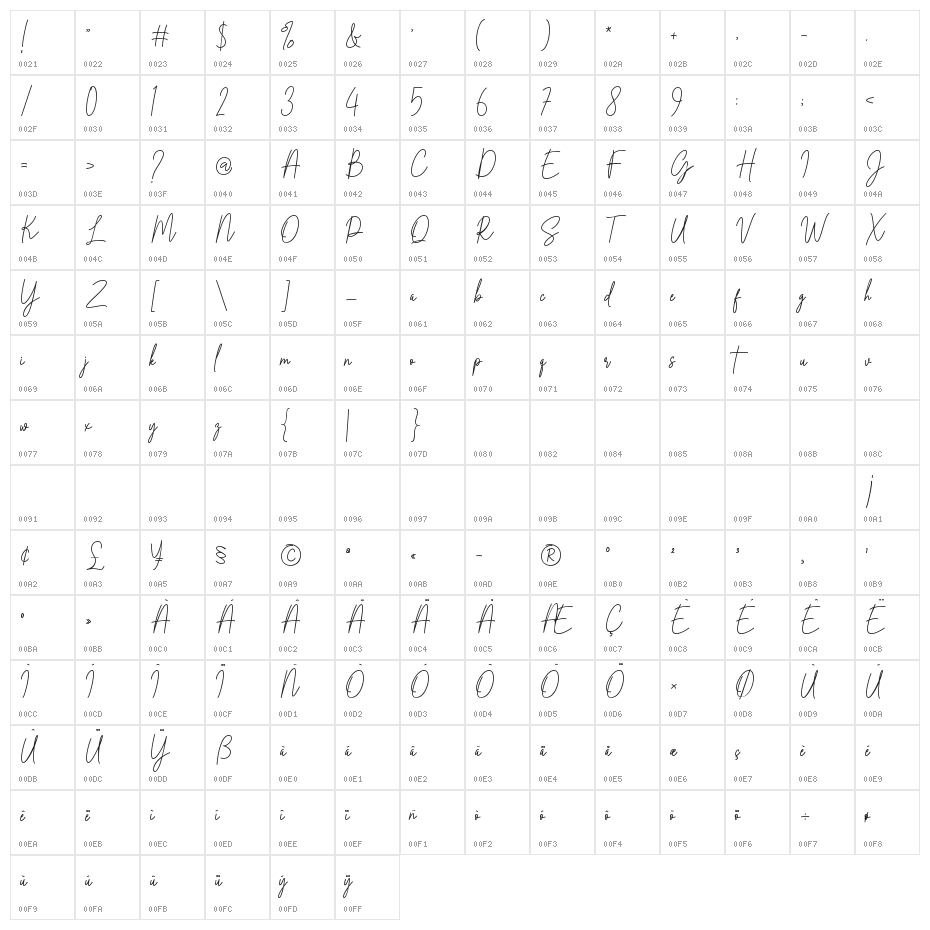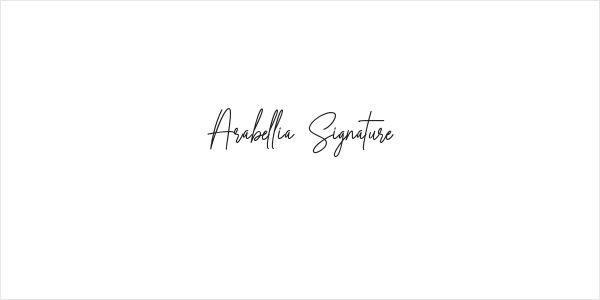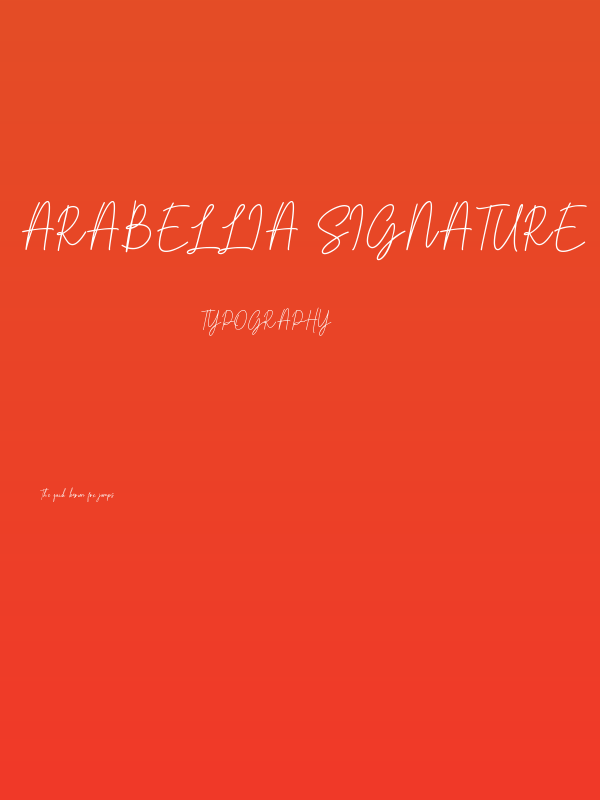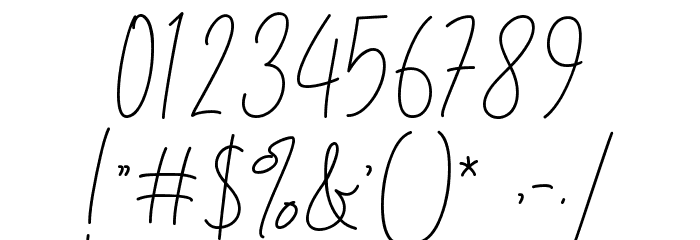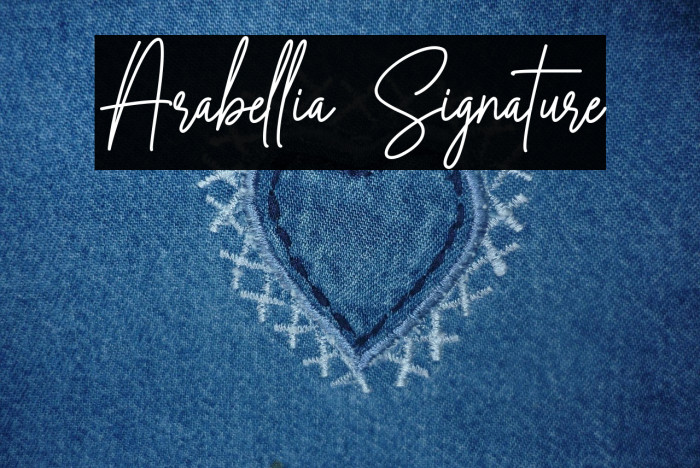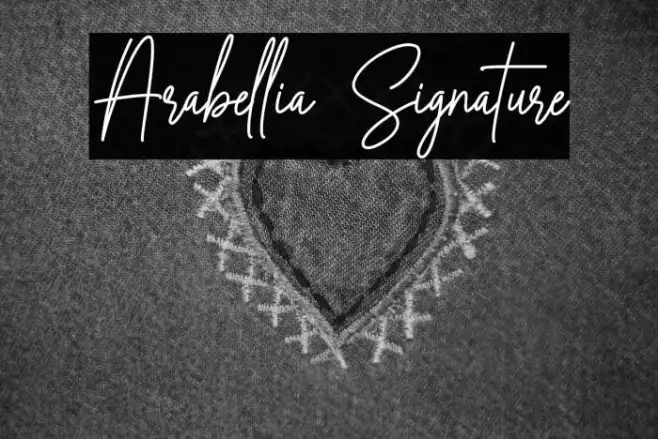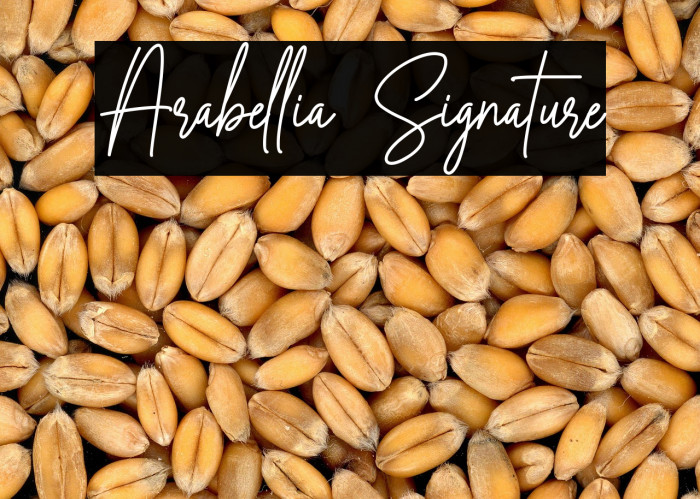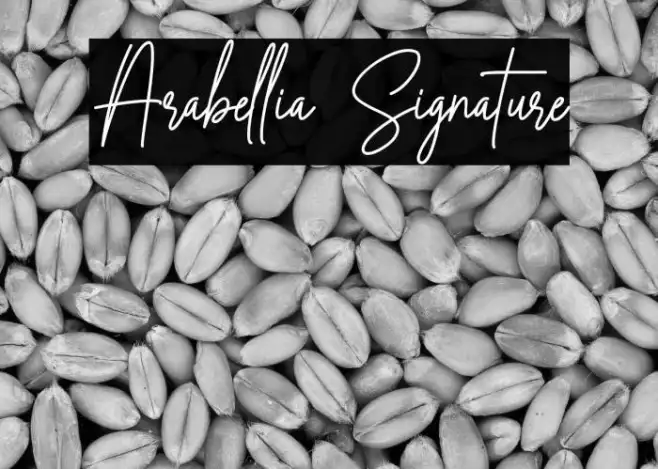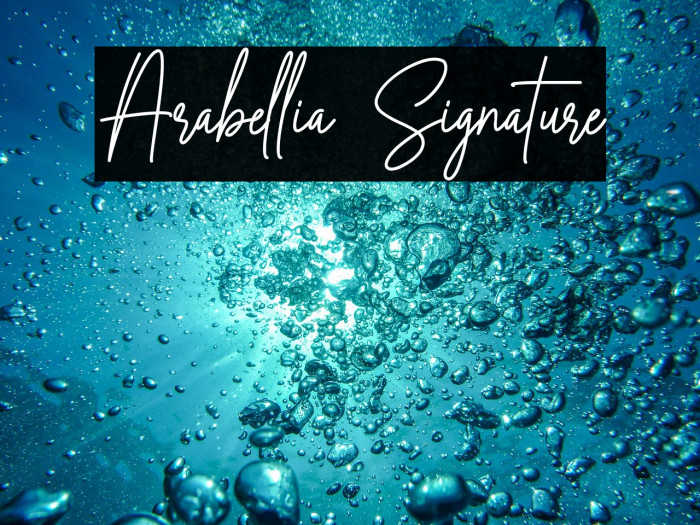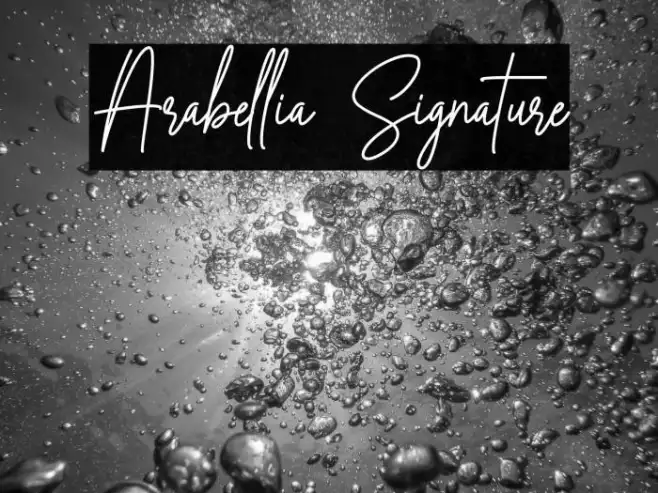
Arabellia Signature Font
Arabellia Signature Description
This font exudes elegance and sophistication with its flowing, cursive style. The characters are designed with a smooth, continuous stroke that mimics the fluidity of handwriting. Each letter is distinct yet harmoniously connected, creating a seamless and graceful appearance. The uppercase letters are slightly larger and more pronounced, while the lowercase letters maintain a consistent flow. Numbers and special characters are crafted with the same attention to detail, ensuring uniformity across the font. This font is perfect for adding a personal touch to any design, making it ideal for invitations, branding, and other creative projects.
| Proposed Projects | Ideal for wedding invitations, personal branding, greeting cards, and elegant logos. |